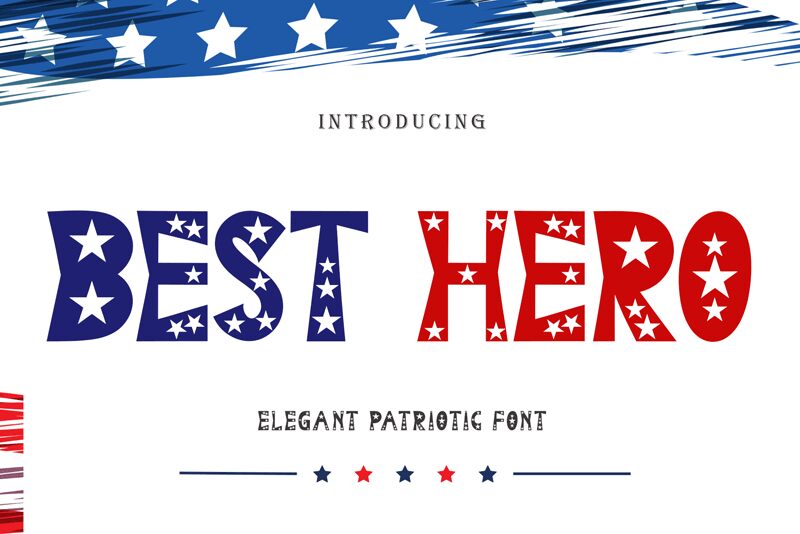
BEST HERO
Brimming with bold character and a captivating sense of energy, the Best Hero font, crafted by the talented Yoga Letter, exudes an undeniable air of heroic grandeur. Its condensed, decorative form commands attention, with each letter standing tall and proud, adorned with a striking pattern of stars that imbue the design with a sense of celestial allure. This font's robust, unwavering aesthetic effortlessly conveys a strong, confident presence, making it a natural choice for projects seeking to evoke a sense of triumphant, larger-than-life appeal.
Best Hero's versatility extends beyond mere aesthetics, as its bold, condensed design lends itself seamlessly to a wide array of applications. From dynamic logos and impactful headlines to eye-catching poster designs and captivating book covers, this font's unique character has the power to elevate any project in need of a heroic, attention-grabbing flair.